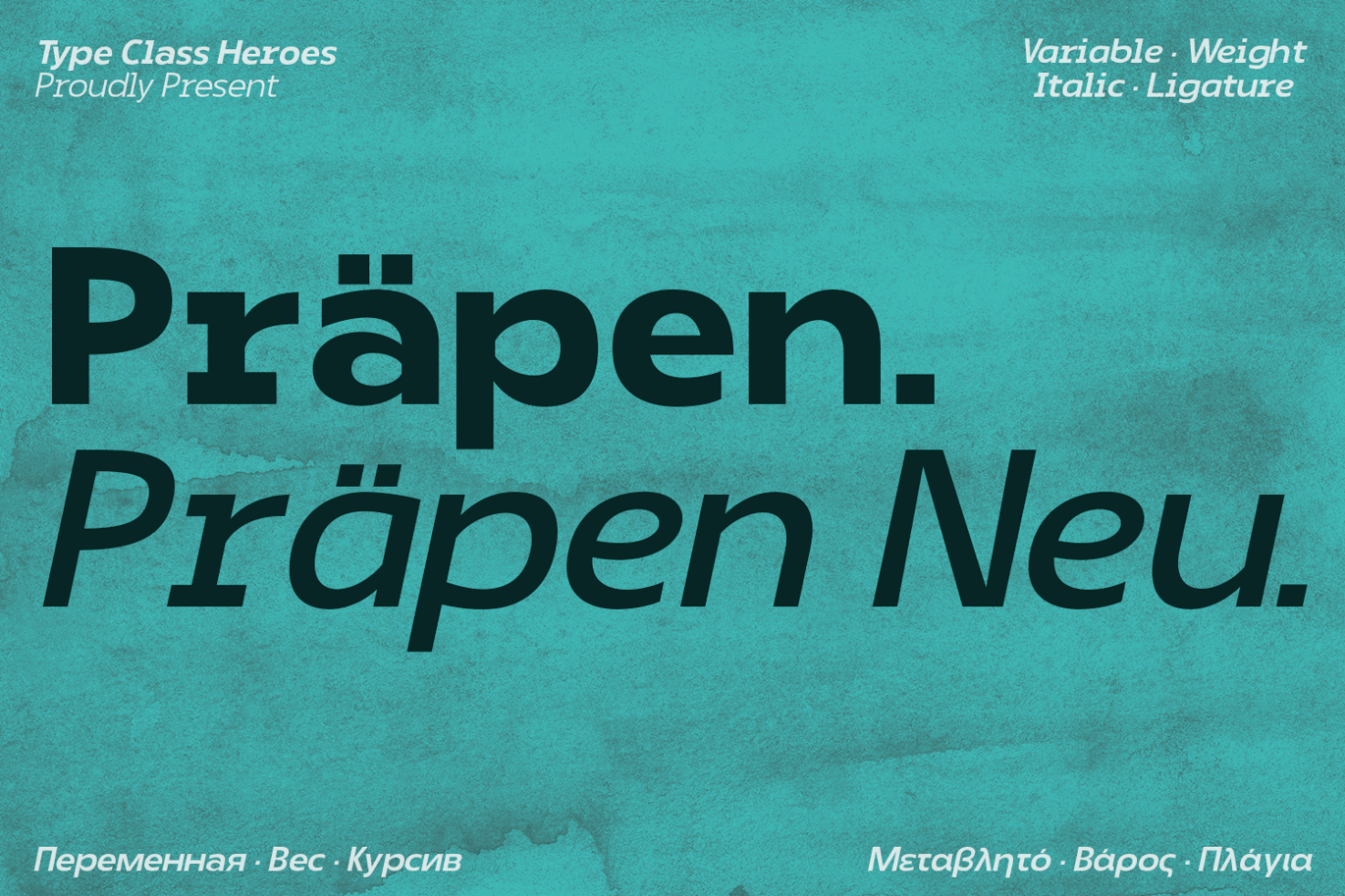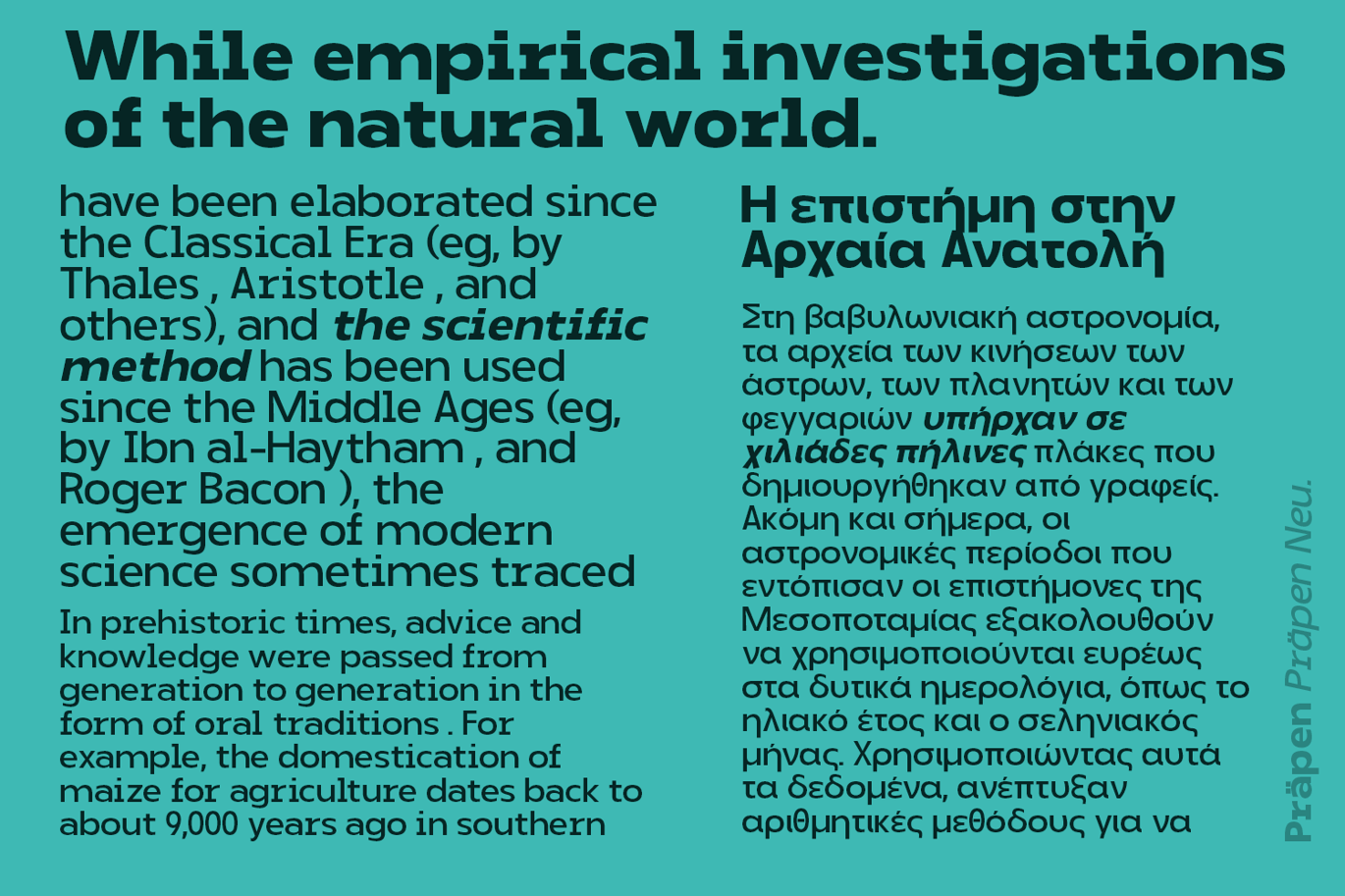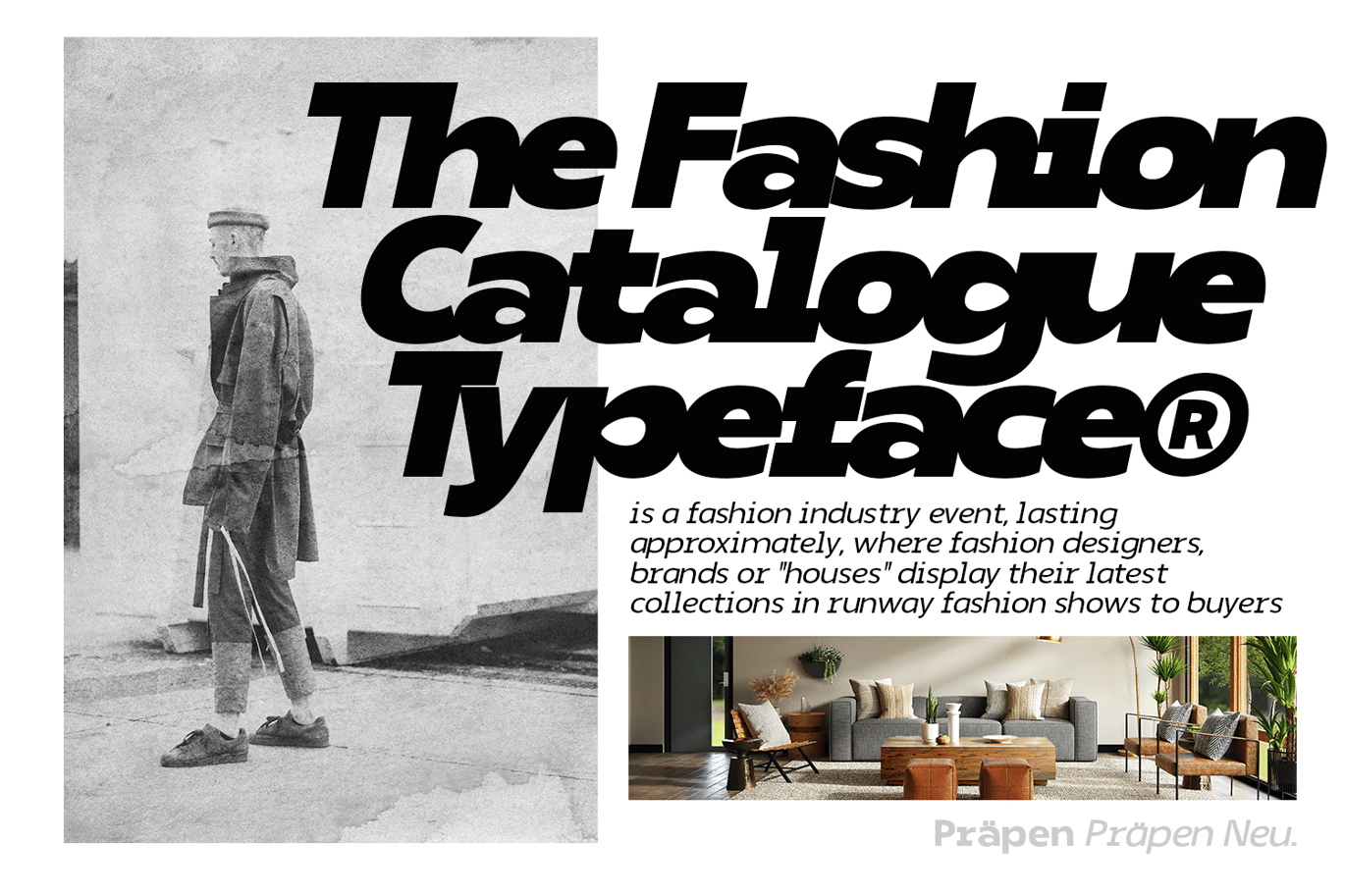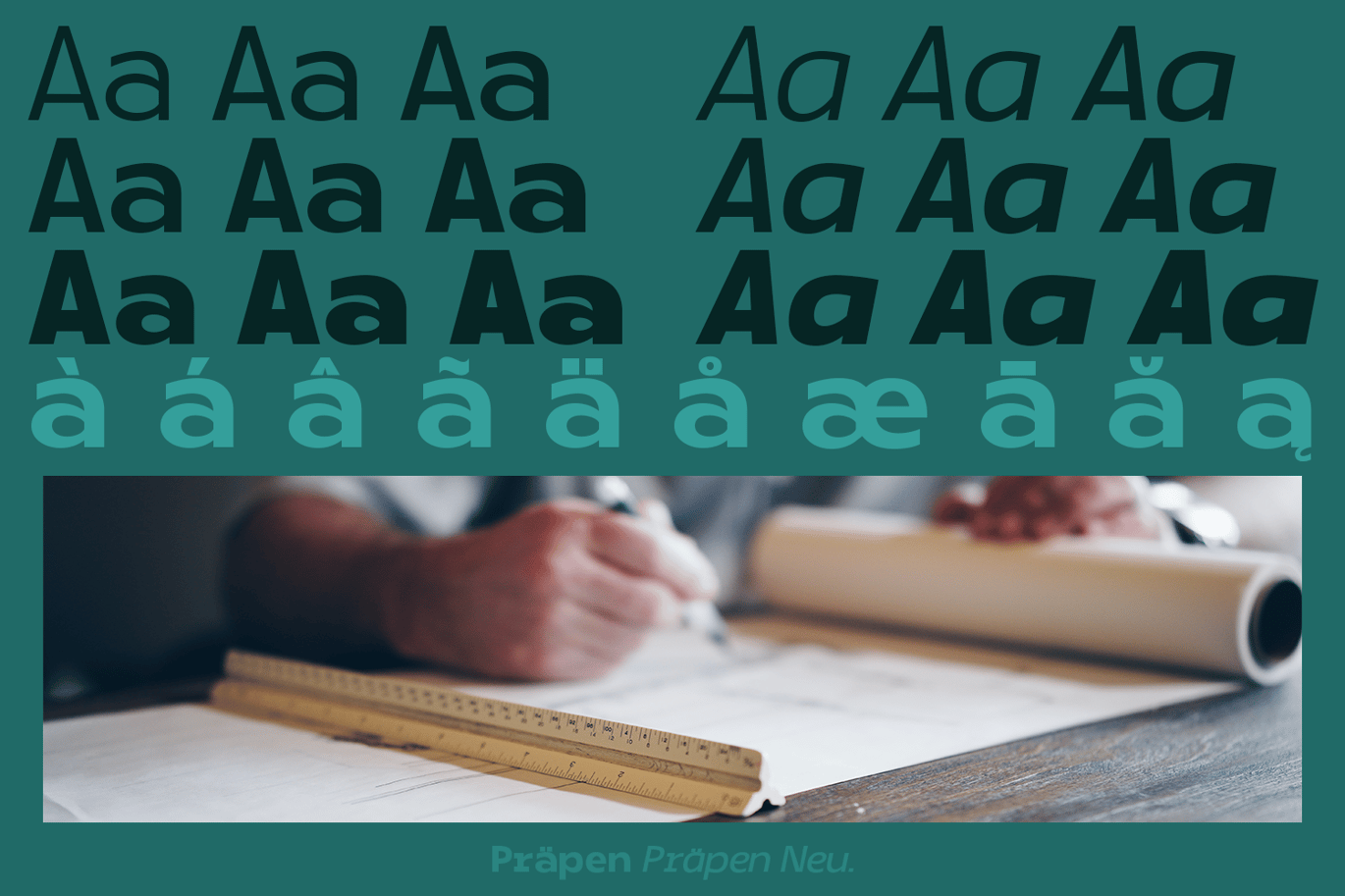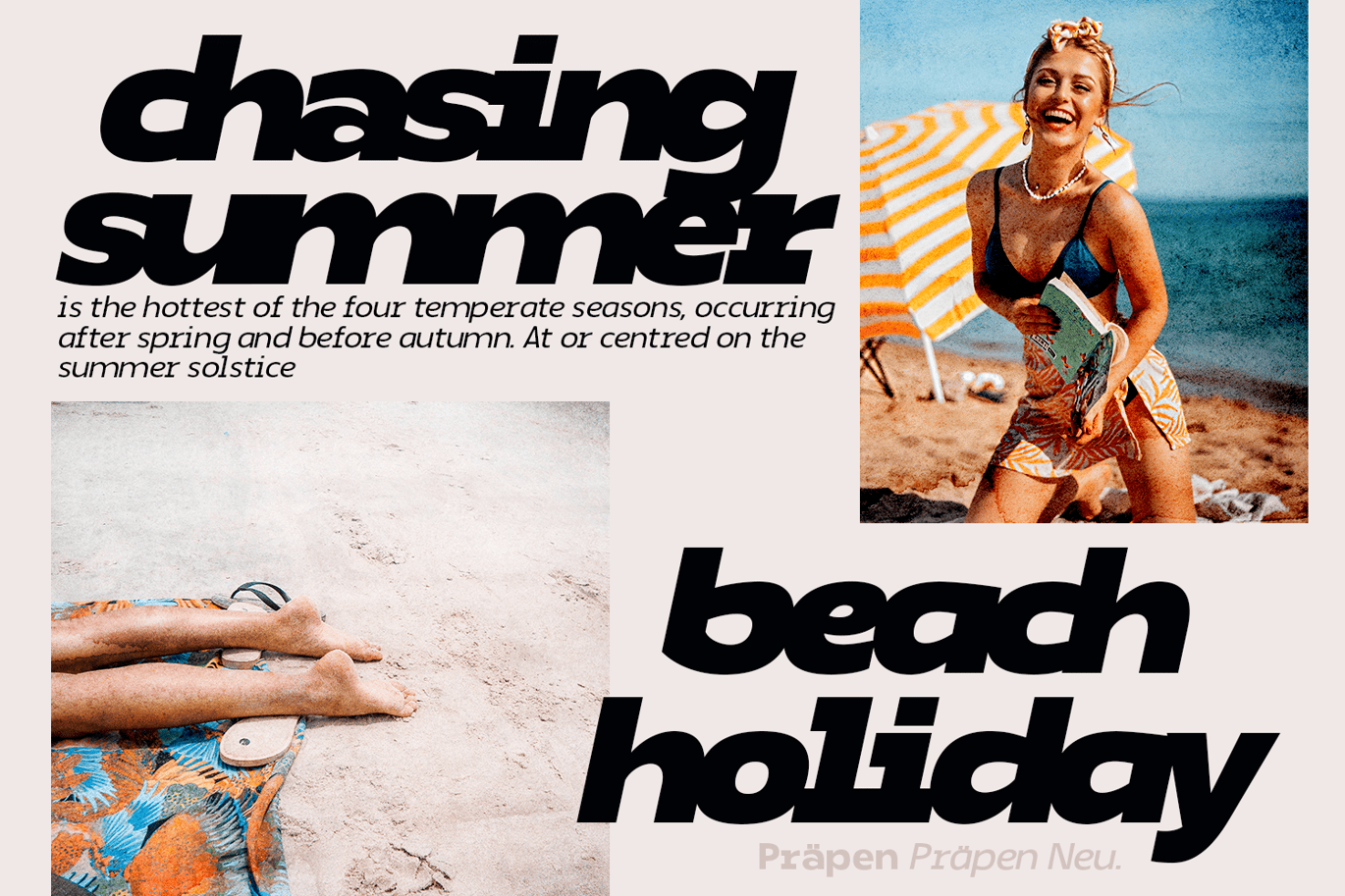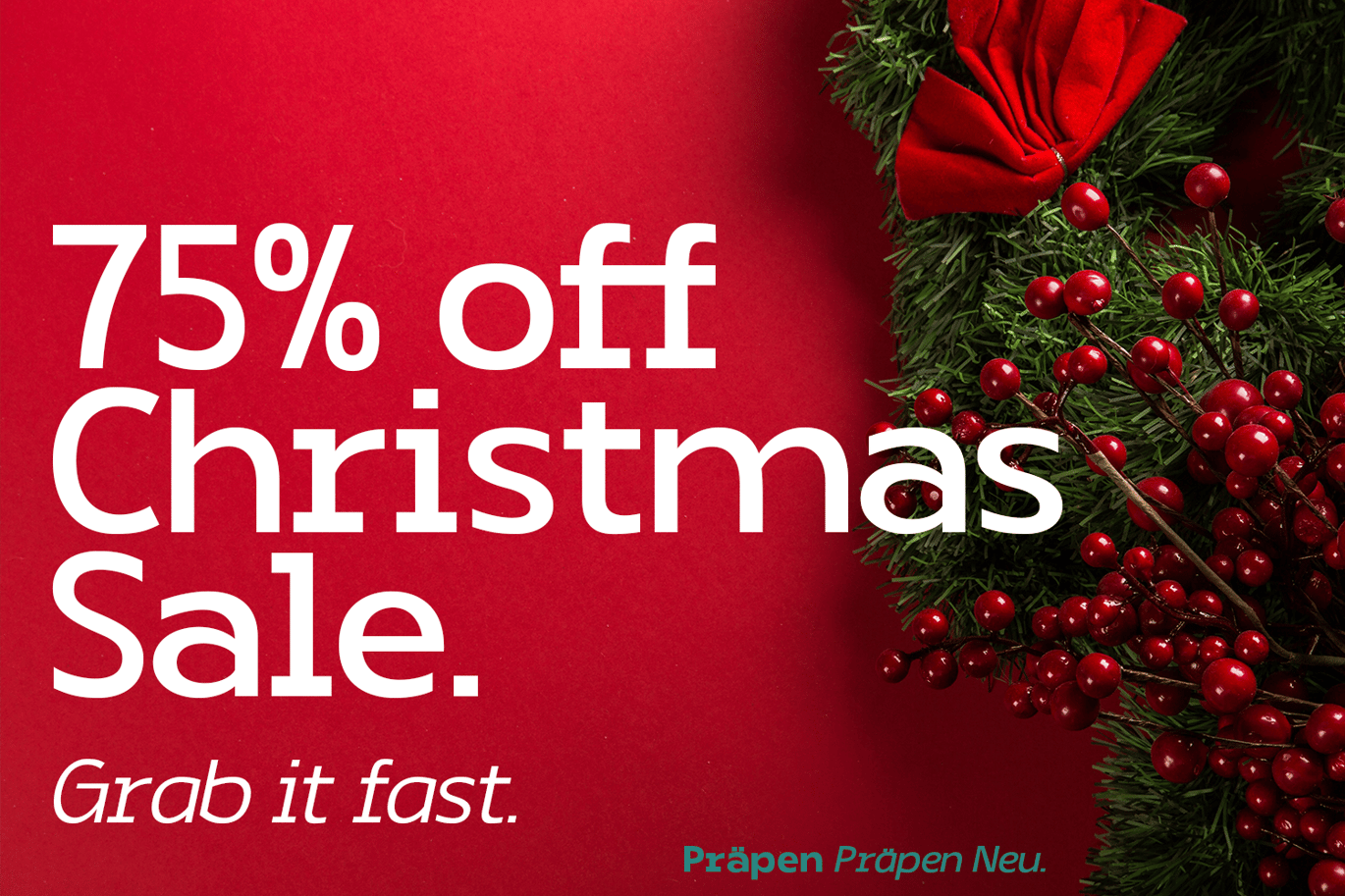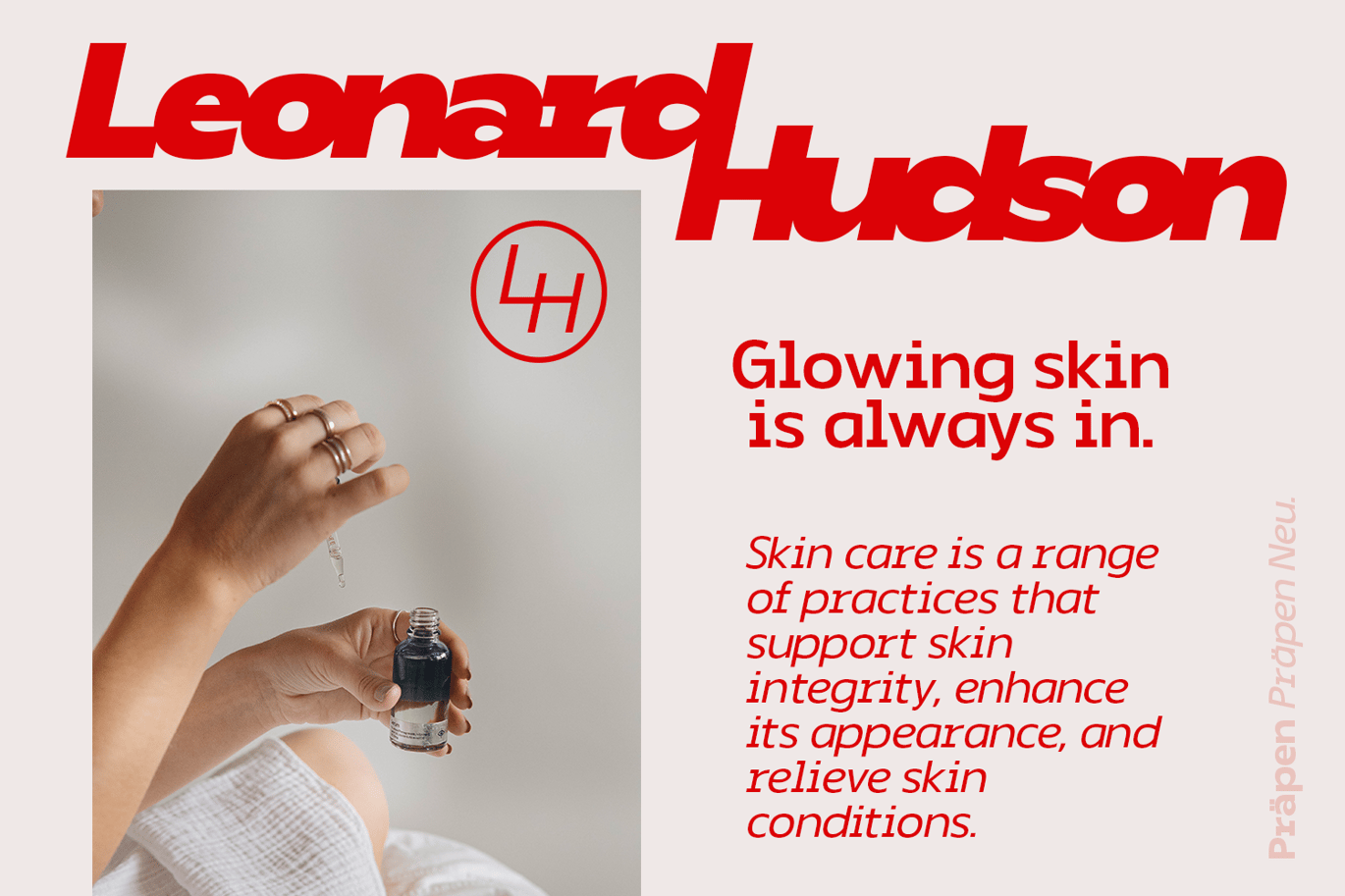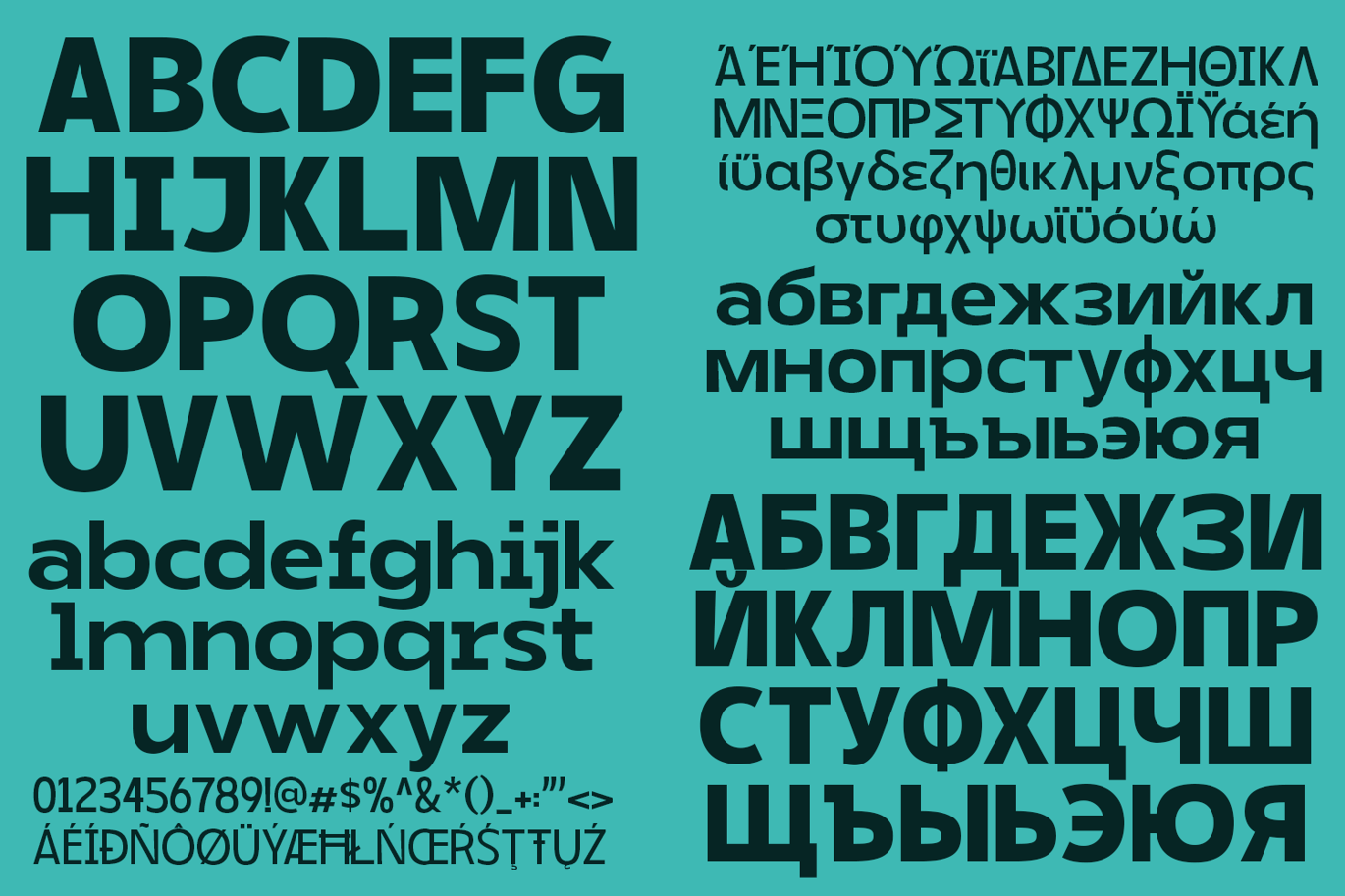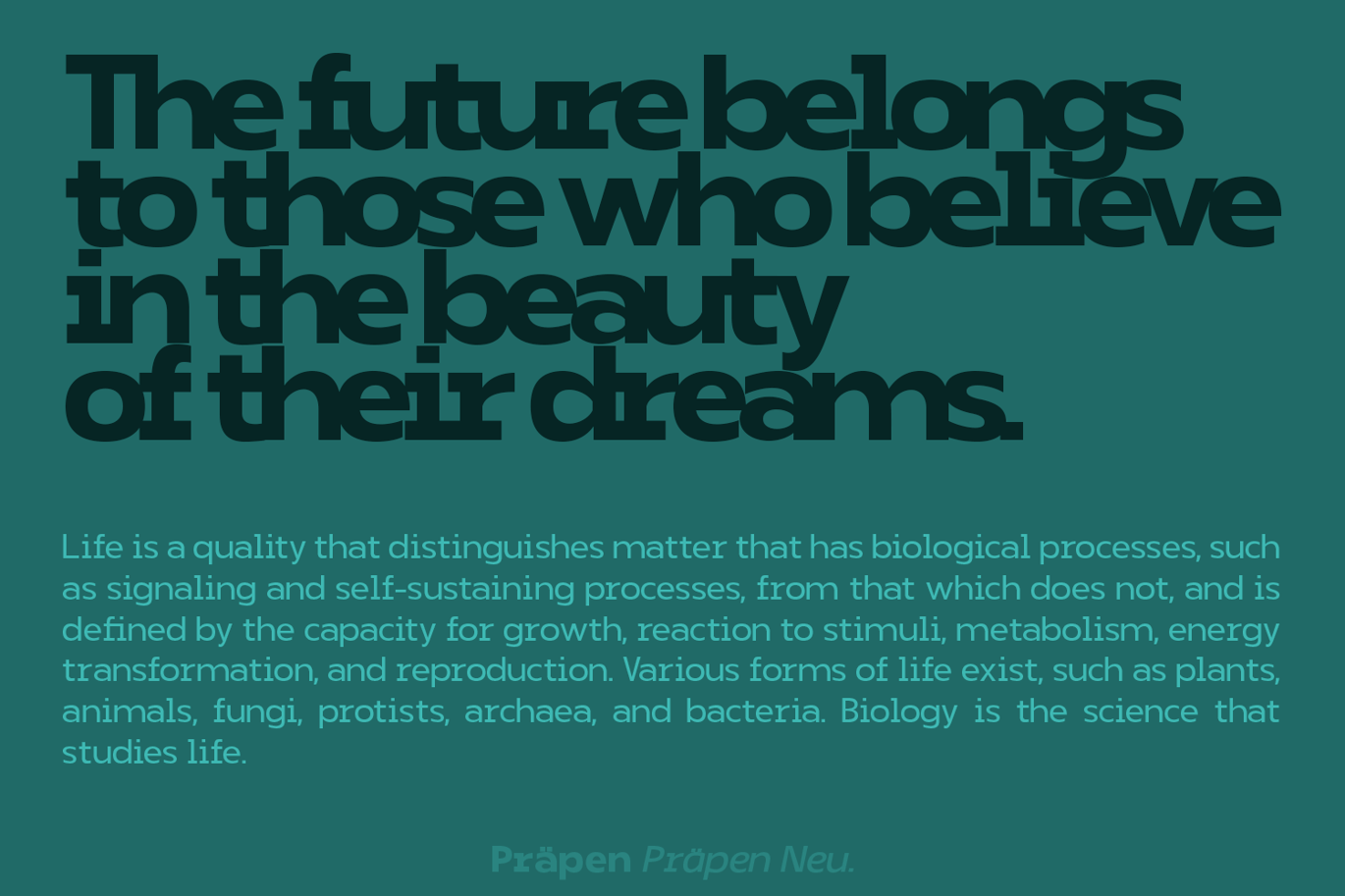
Prapen Font
Prapen and Prapen Neu is a Monospaced sans serif family. Design with various width and weight that you can explore and combine creating rhythm and texture for comfortable reading. This font supports more than 100 Latin-based languages and has extensive Cyrillic and Greek support for languages like Russian, Bulgarian, Ukrainian, and many more.In variable version, it allows multiple options when designing, adapting to different composition solutions.
- Number & Symbol
- International Glyphs (Cyrillic & Greek)